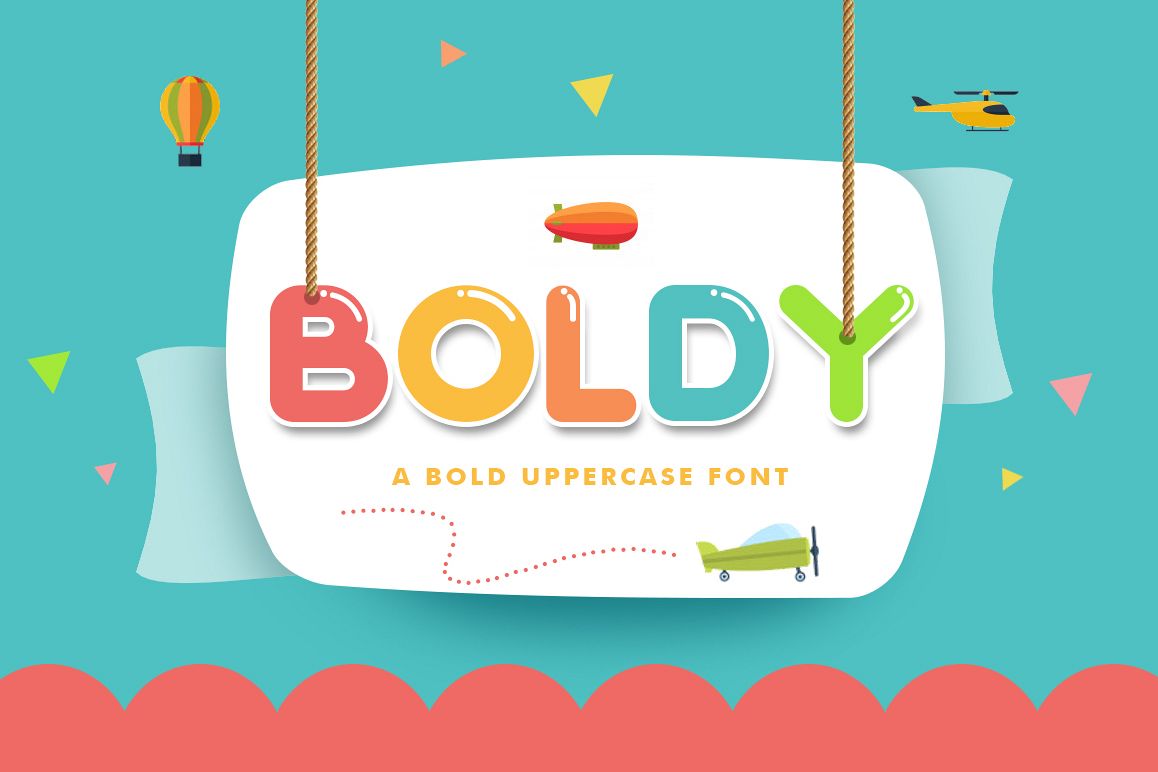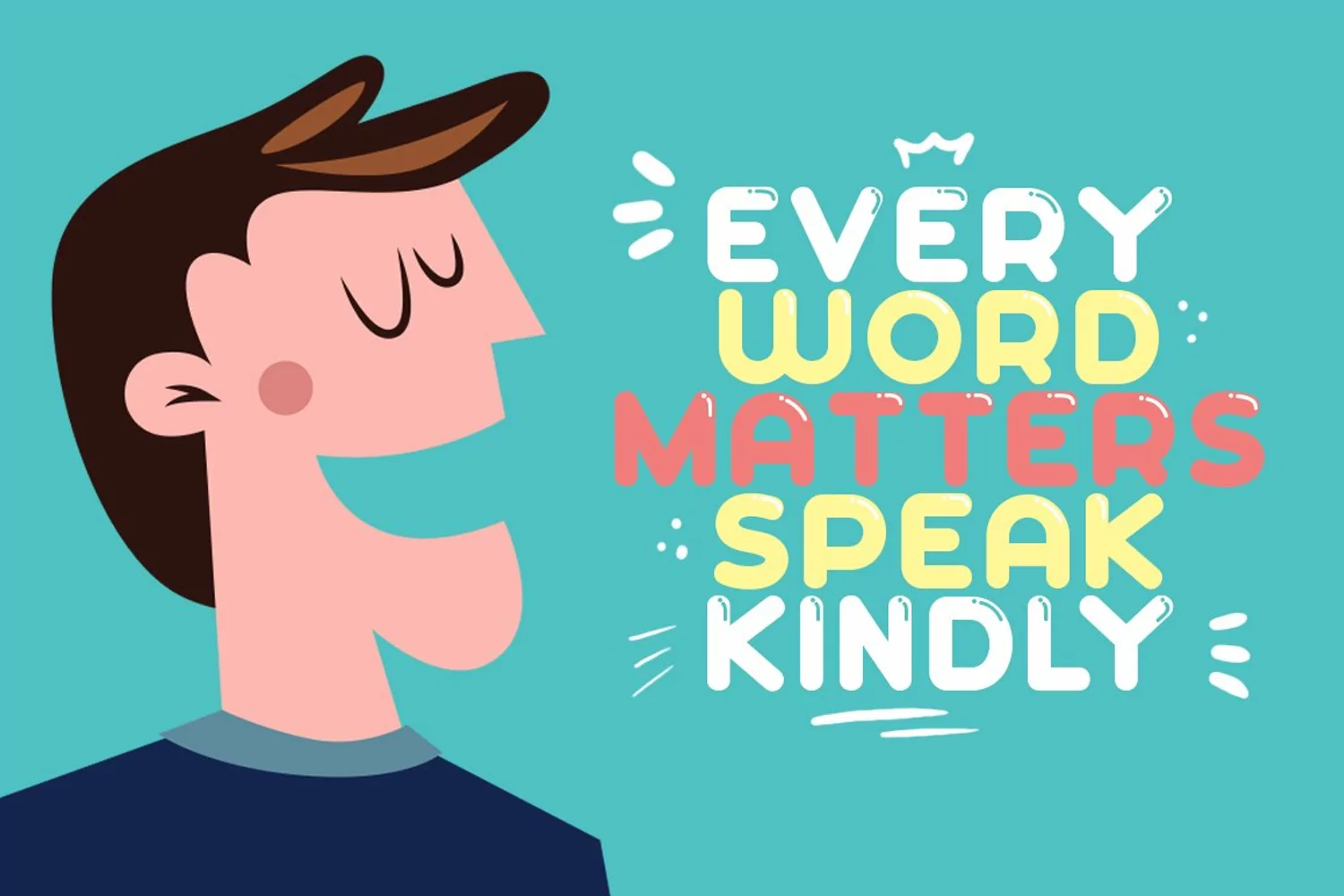
Boldy Font is a fun bold script font, fresh & modern style with 2 different style, regular and shiny. Boldy font support multilanguage & used with layers method. Boldy Display Font suitable for logo, branding, greeting card, poster and any design that you create.